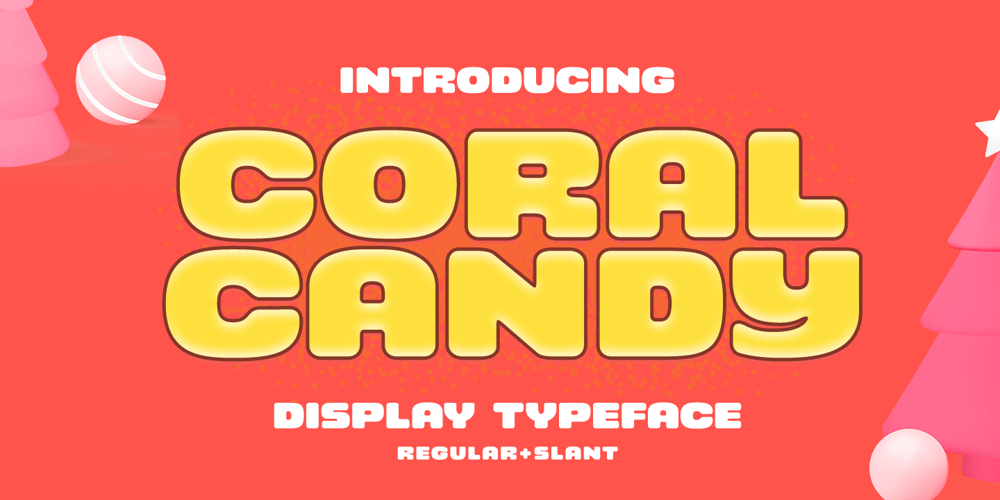
Coral Candy Regular Slant Font Family was designed by Hendry Juanda and published by Letterhend. Coral Candy Regular Slant contains 2 styles and family package options. Coral Candy is a bold font with fun and playful looks. This type of font perfectly made to be applied especially in cartoon or child theme which is need a standout font, and the other various formal forms such as invitations, labels, logos, magazines, books, greeting / wedding cards, packaging, fashion, make up, stationery, novels, labels or any type of advertising purpose.Features : numbers and punctuation multilingual ligatures PUA encoded We highly recommend using a program that supports OpenType features and Glyphs panels like many of Adobe apps and Corel Draw, so you can see and access all Glyph variations.